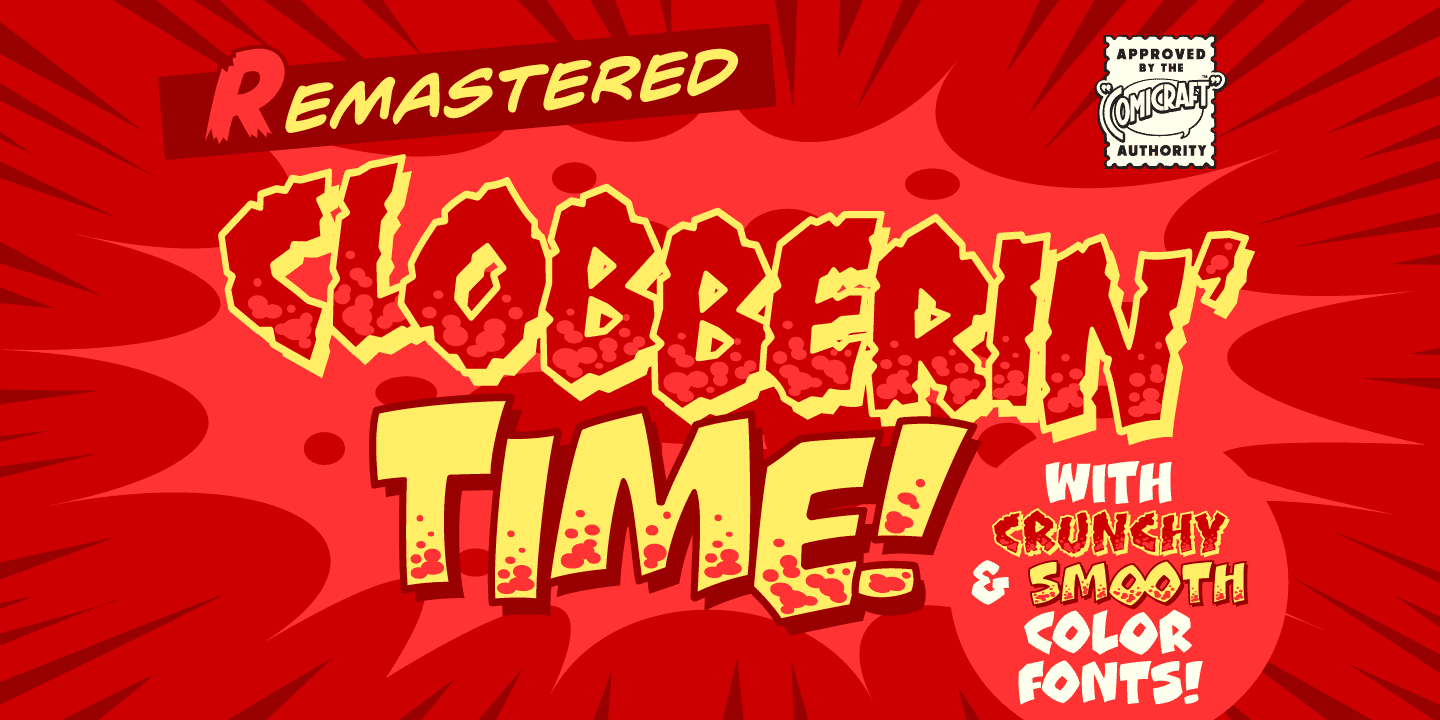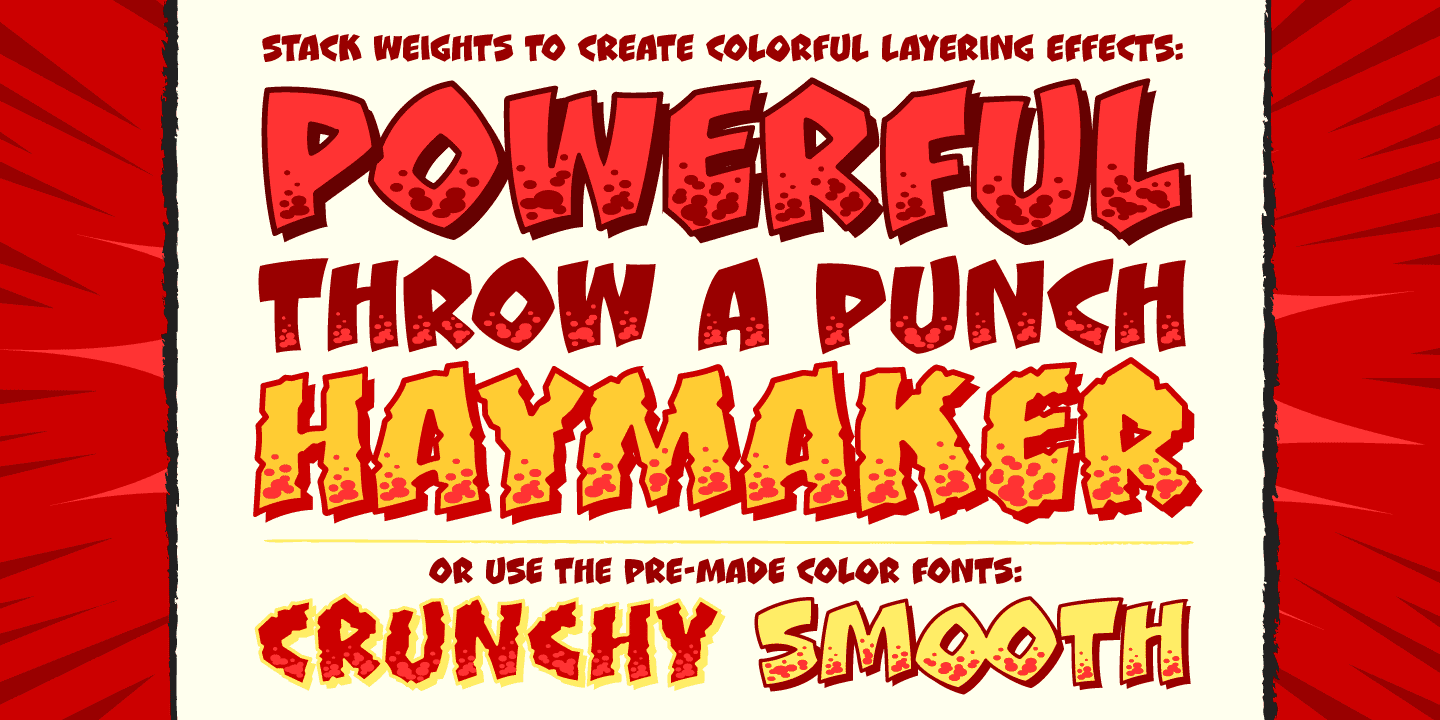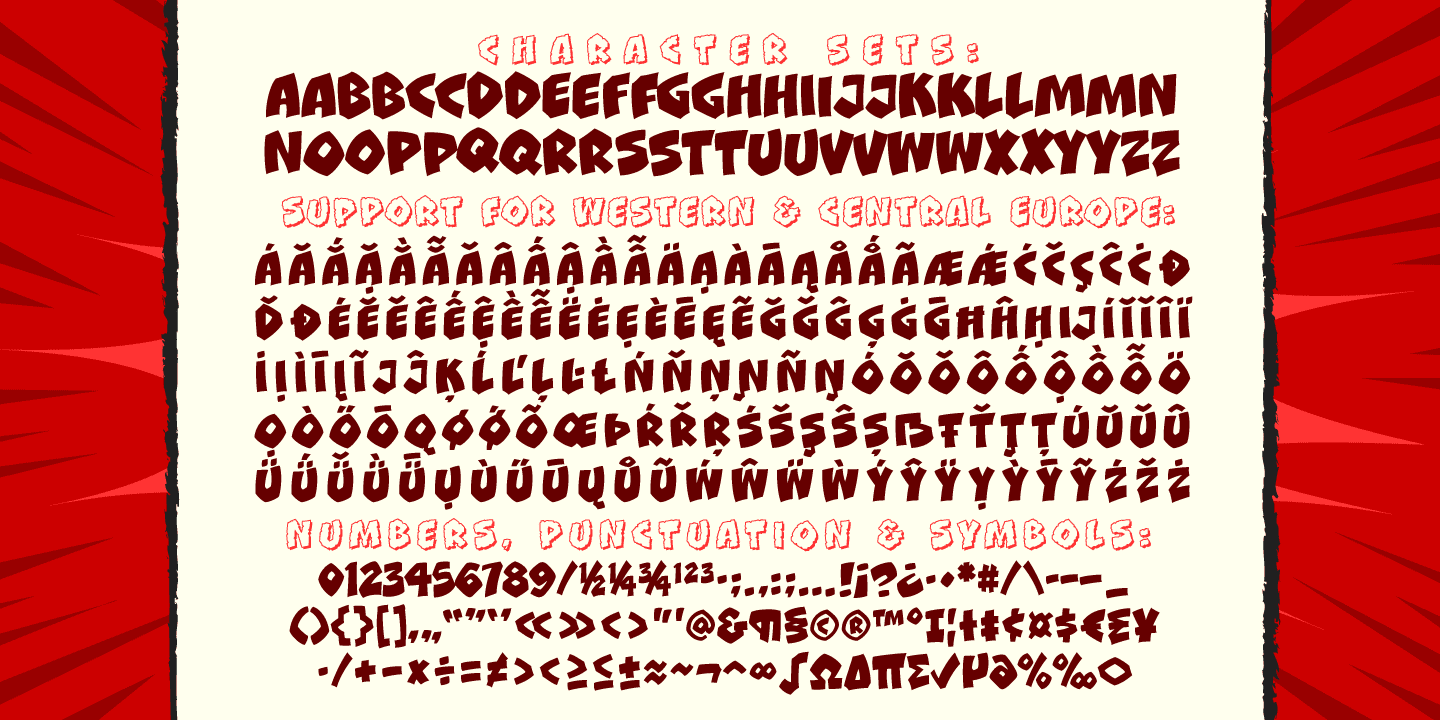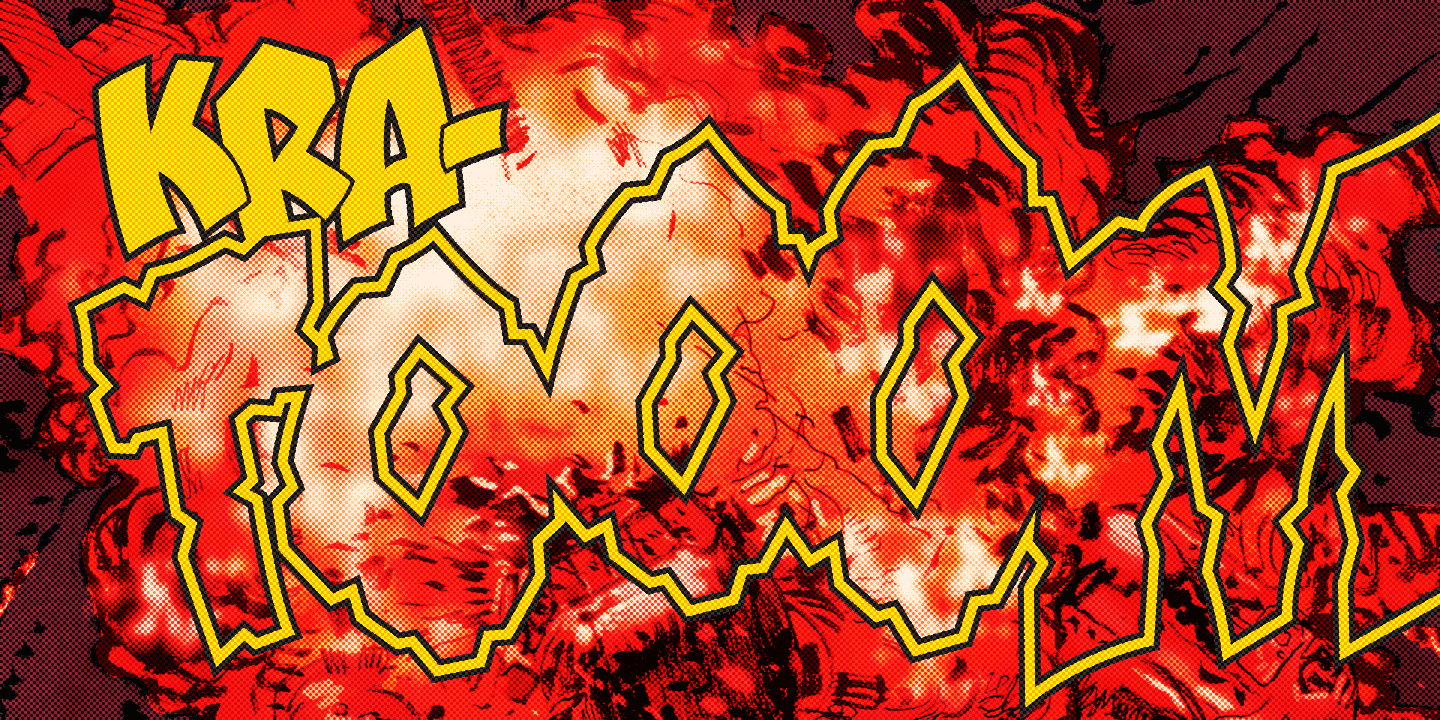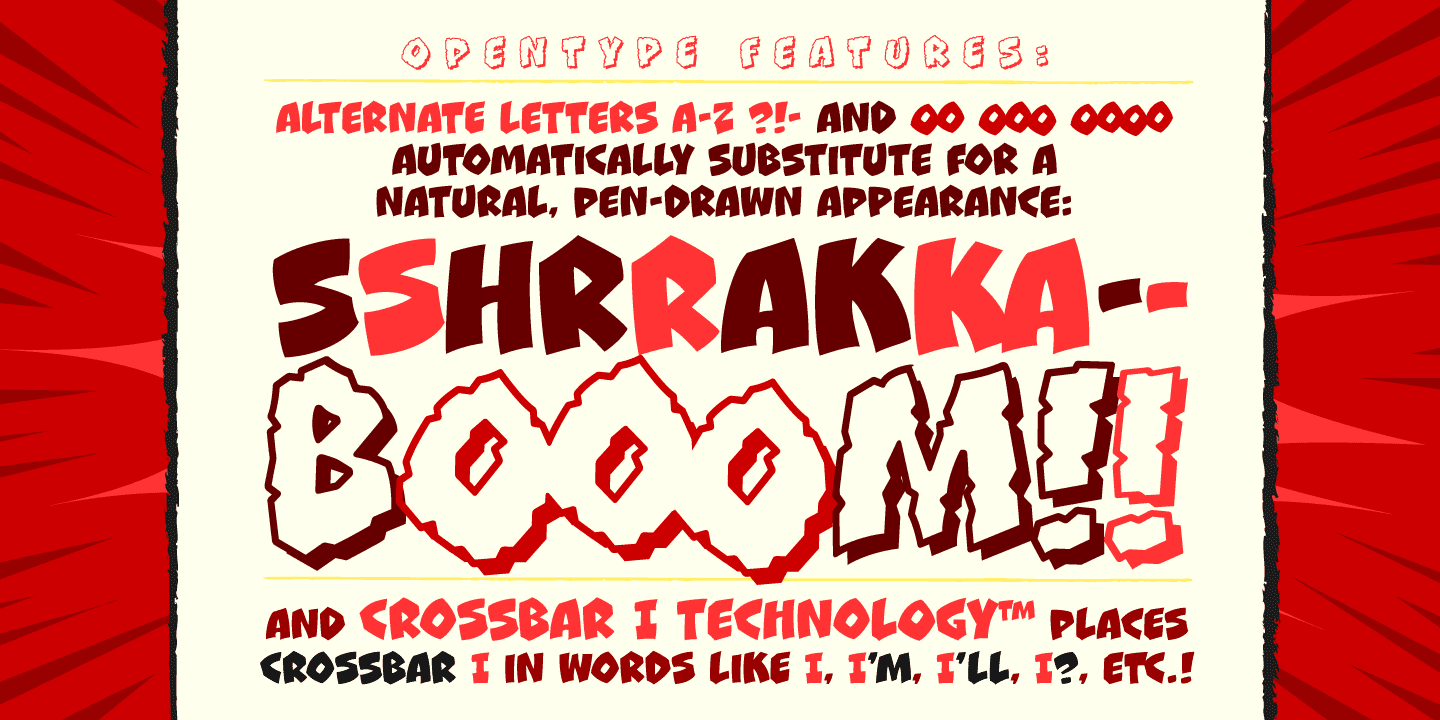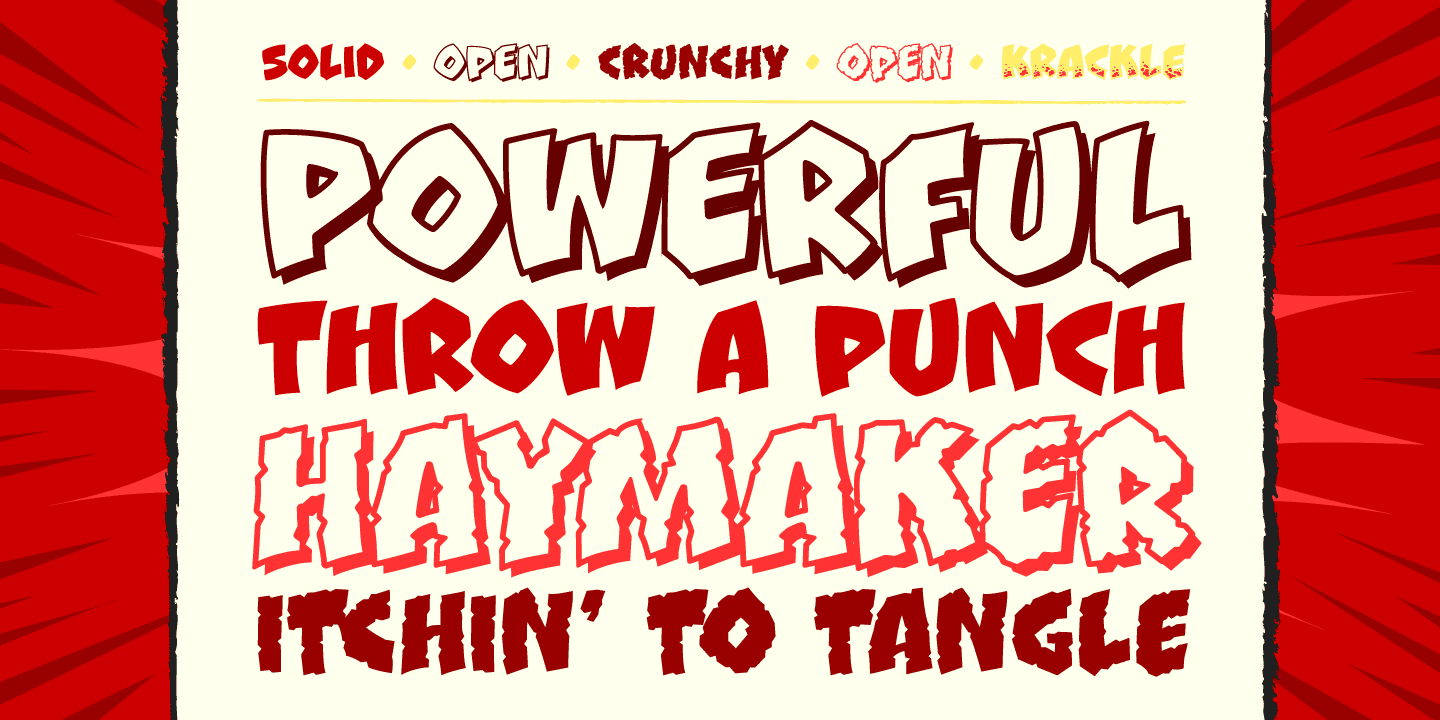
Clobberin Time
Come out swinging with Comicraft's best-loved sound effect font, now with added KIRBY KRACKLE to give extra Powerhouse to every Punch!